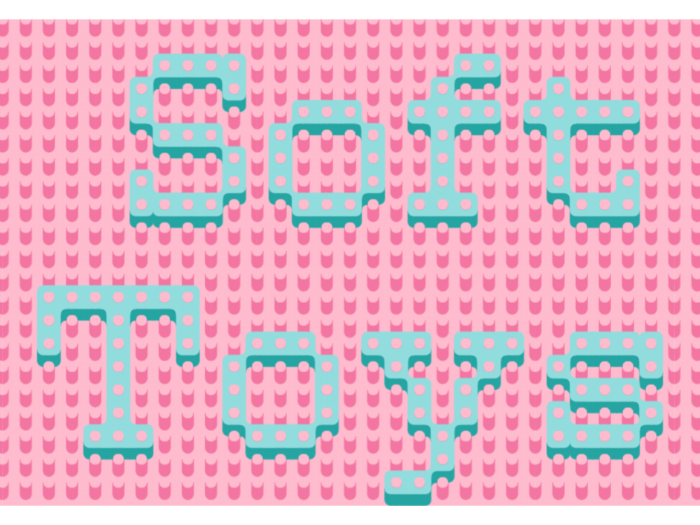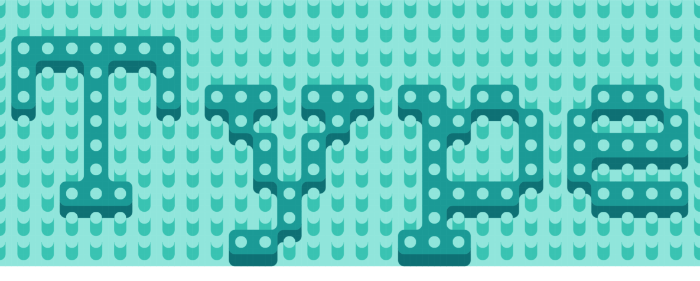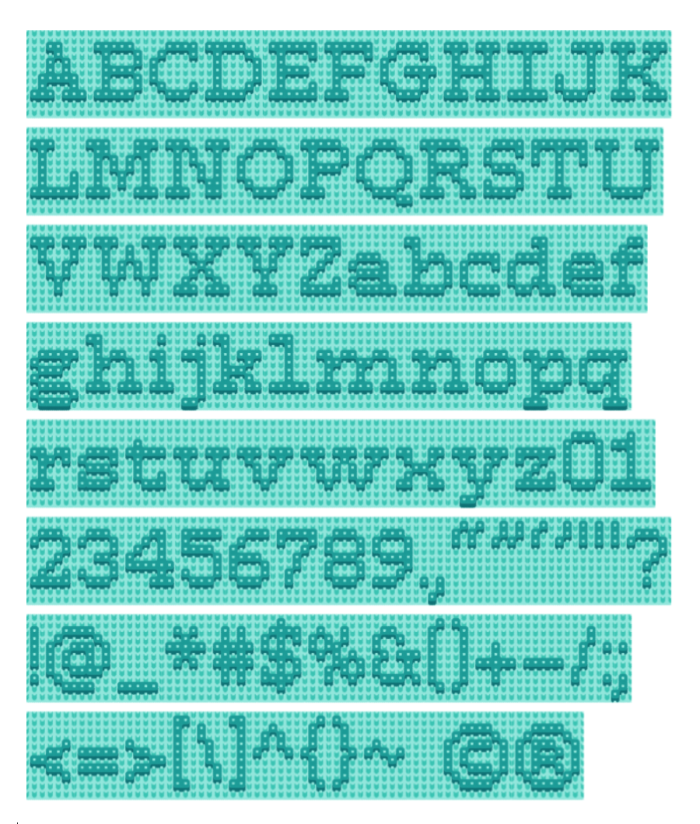
Based on Ambrose Pixel (2020).
This is a serif font using the same design as Softstruct. The color scheme is different, yet it also looks very plasticky.
Better colours: #90e5db, #39c3b2, #1b9a96, #0e7074.
@riccard0: Thank you for your comment. Colours can be changed easily. The new mint-turquoise-teal-dark teal scheme is better suited for smaller sizes, as it provides more contrast.